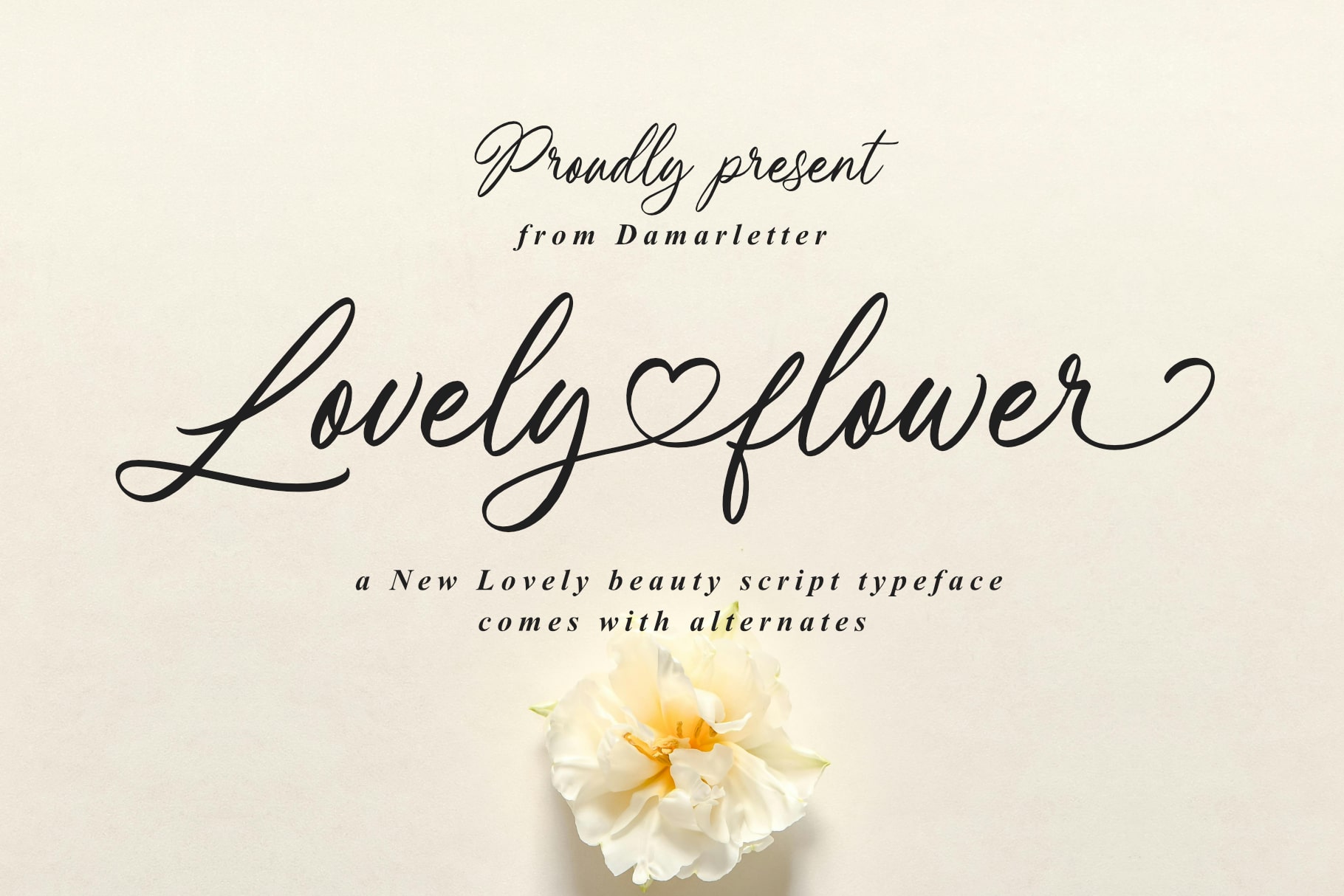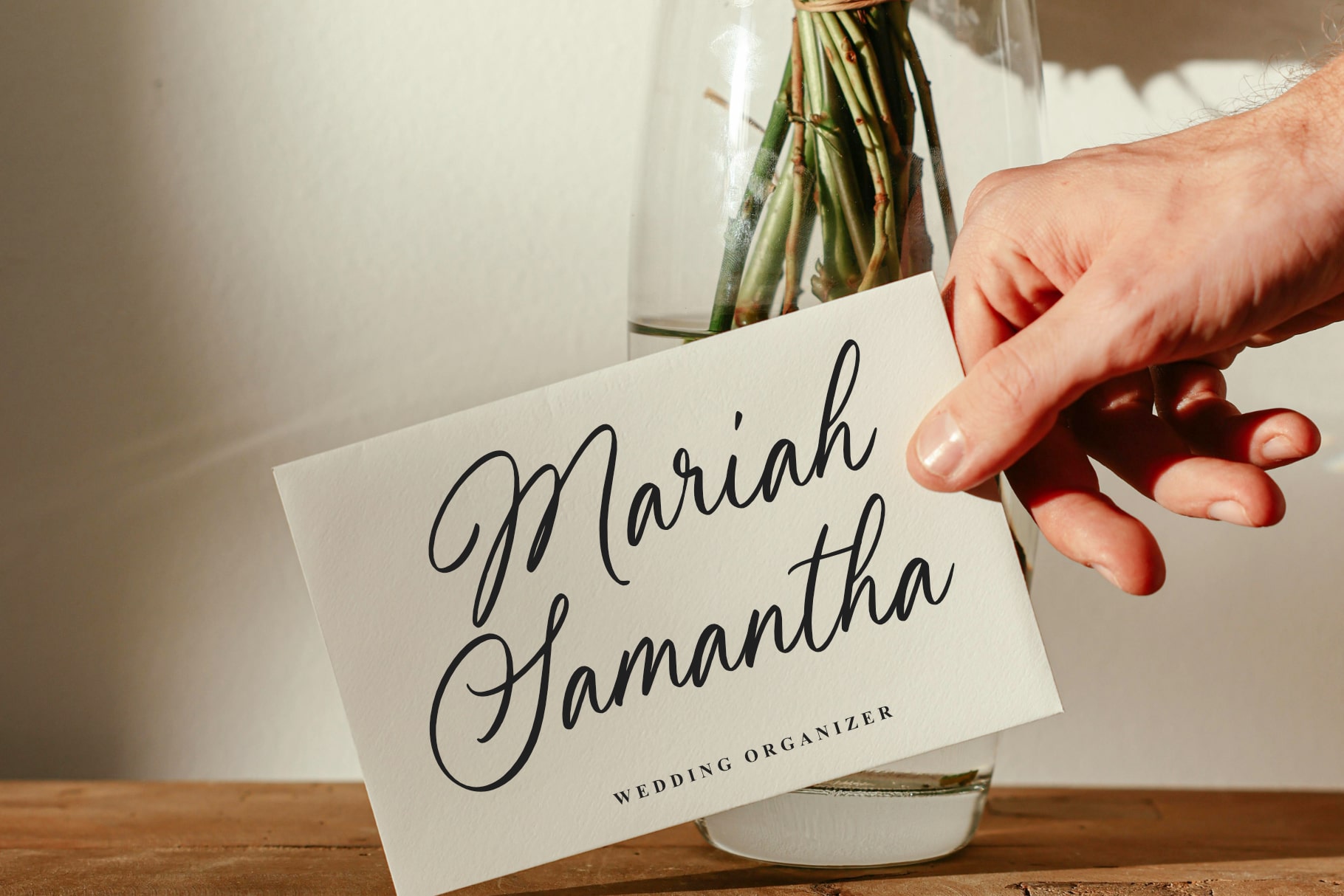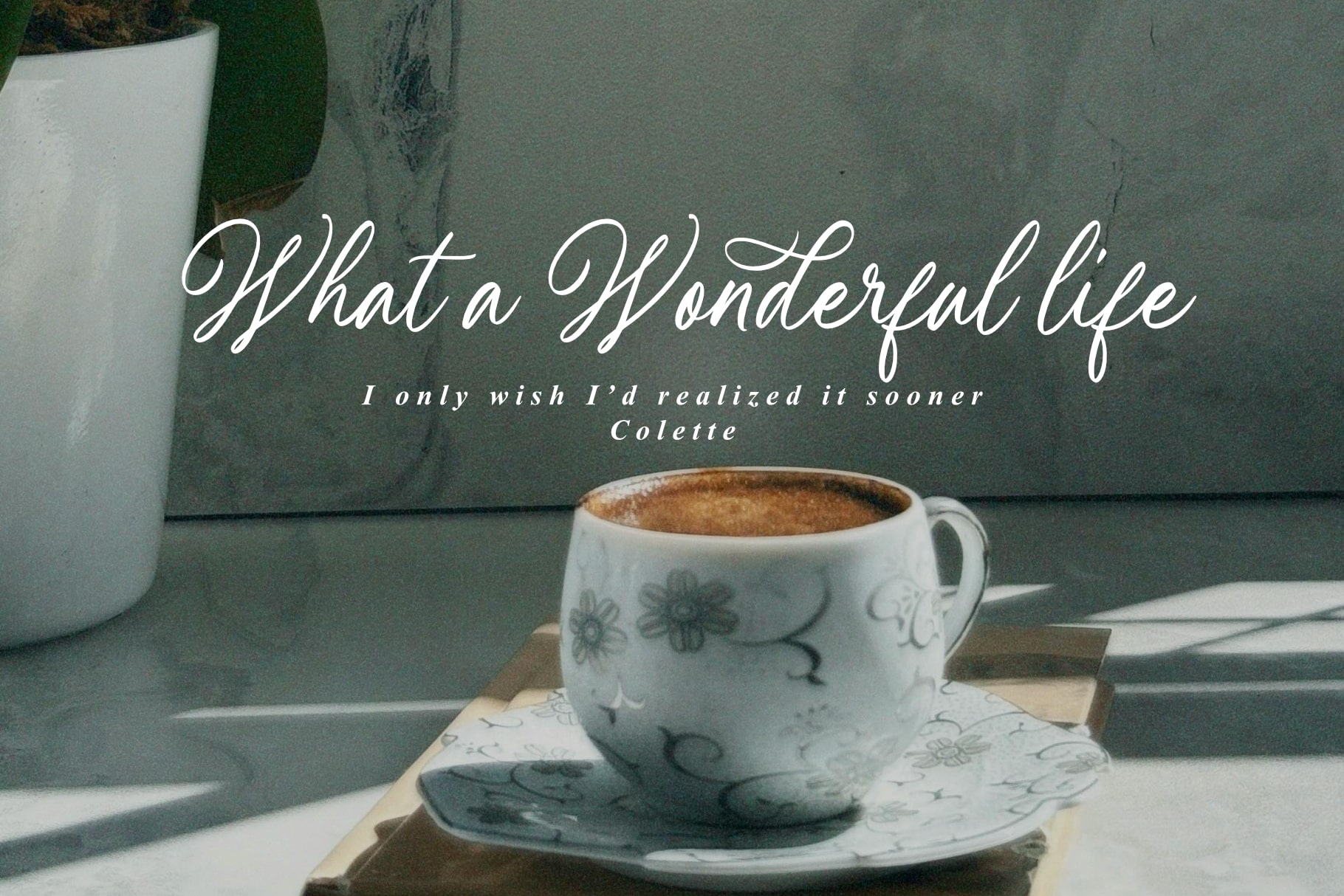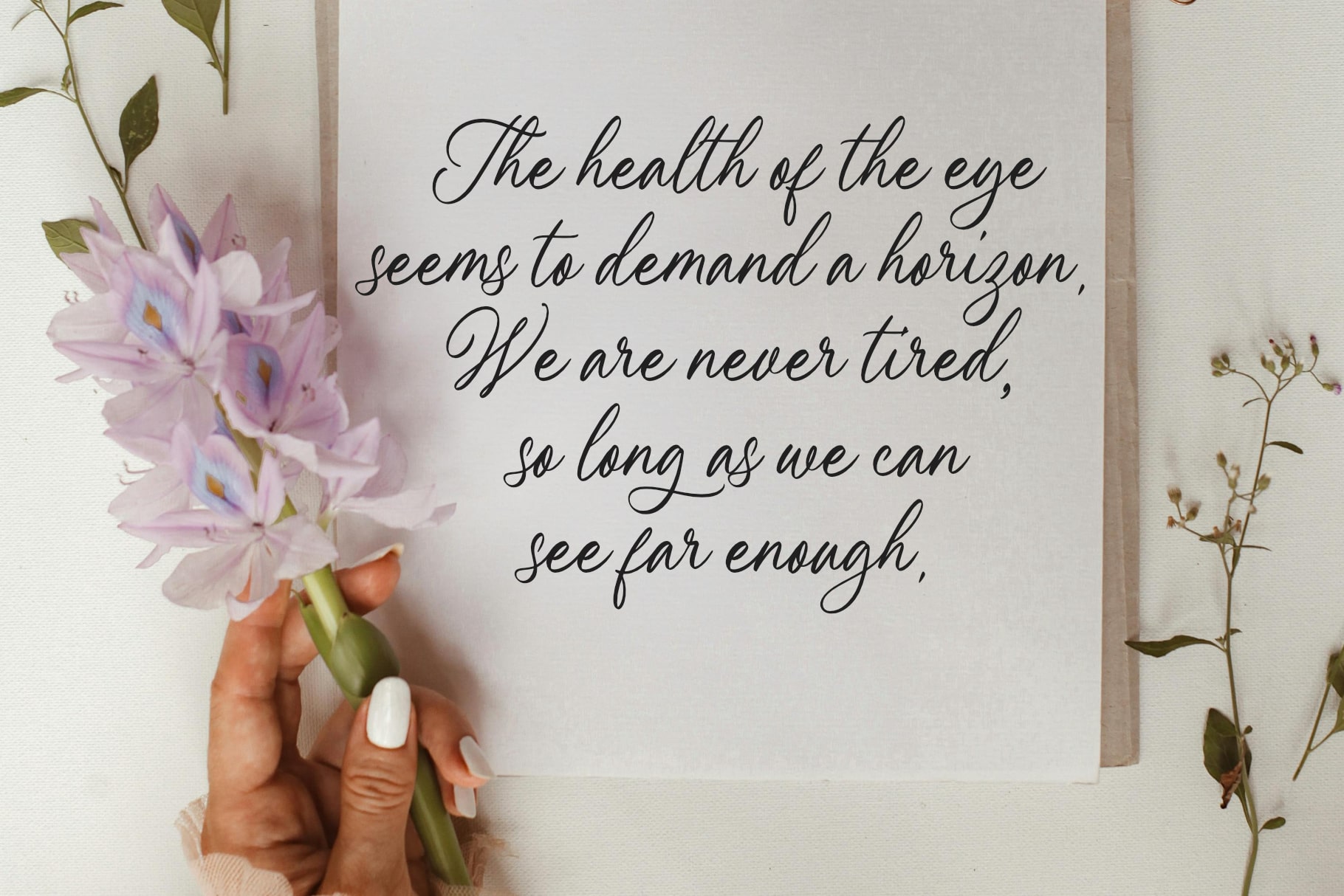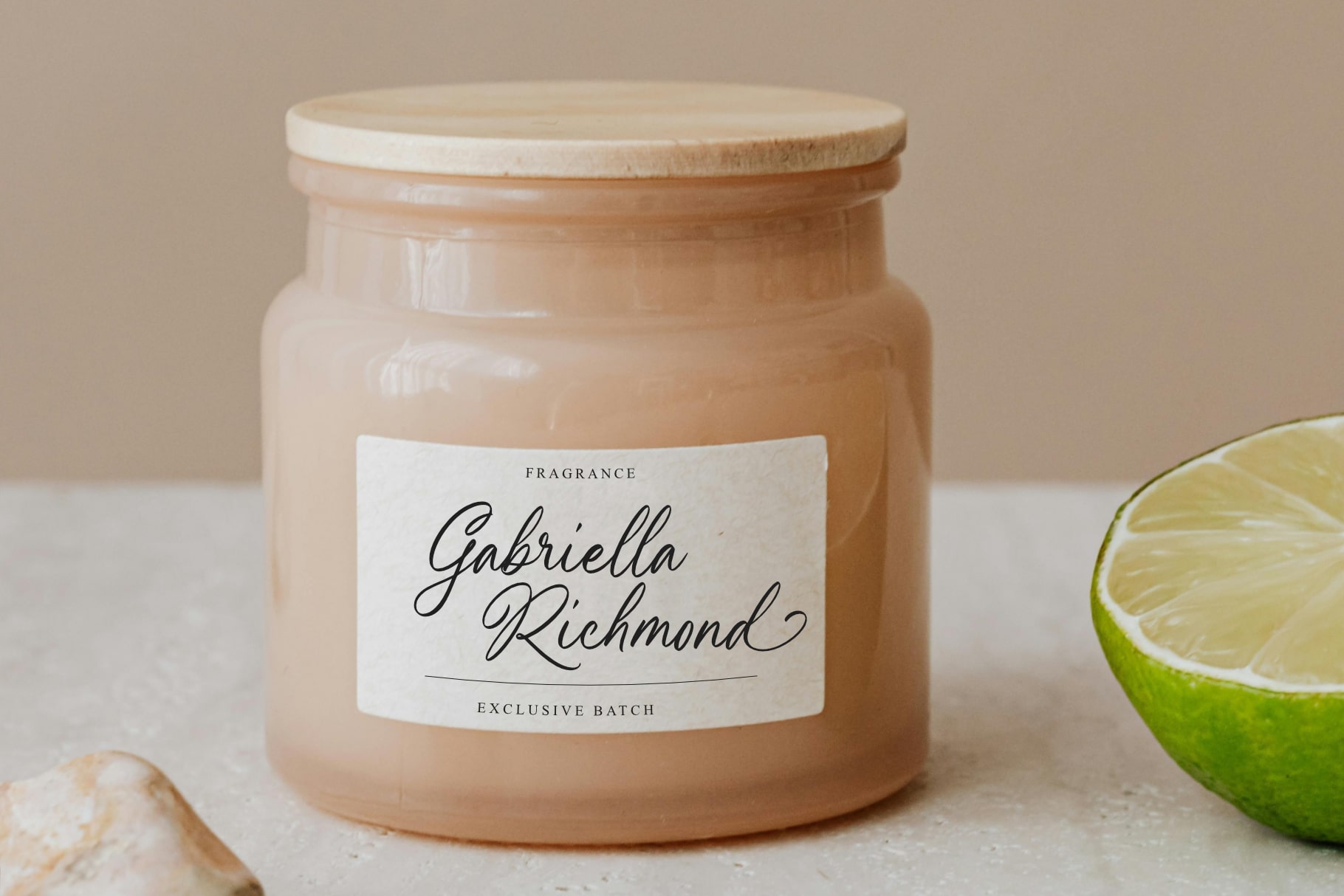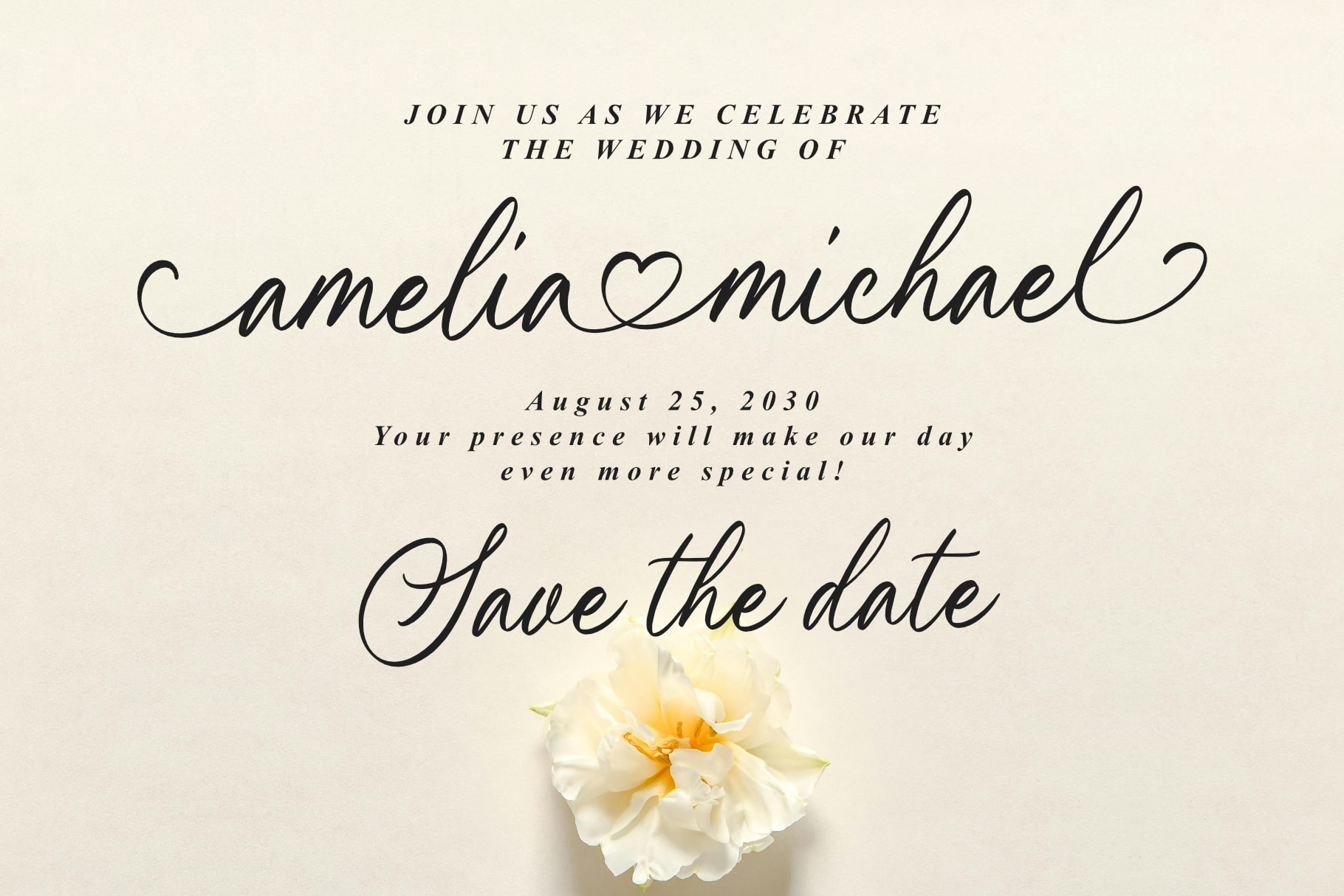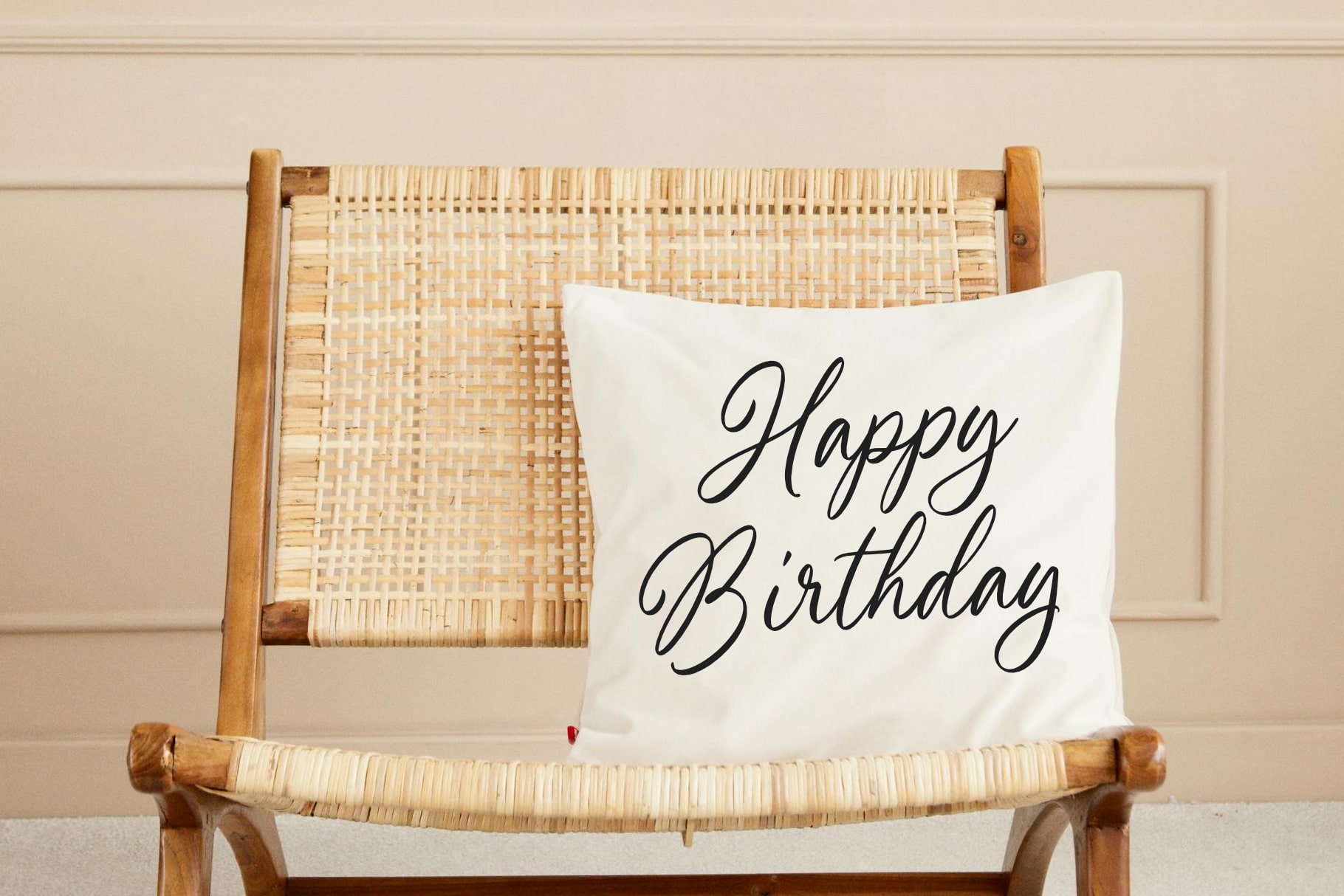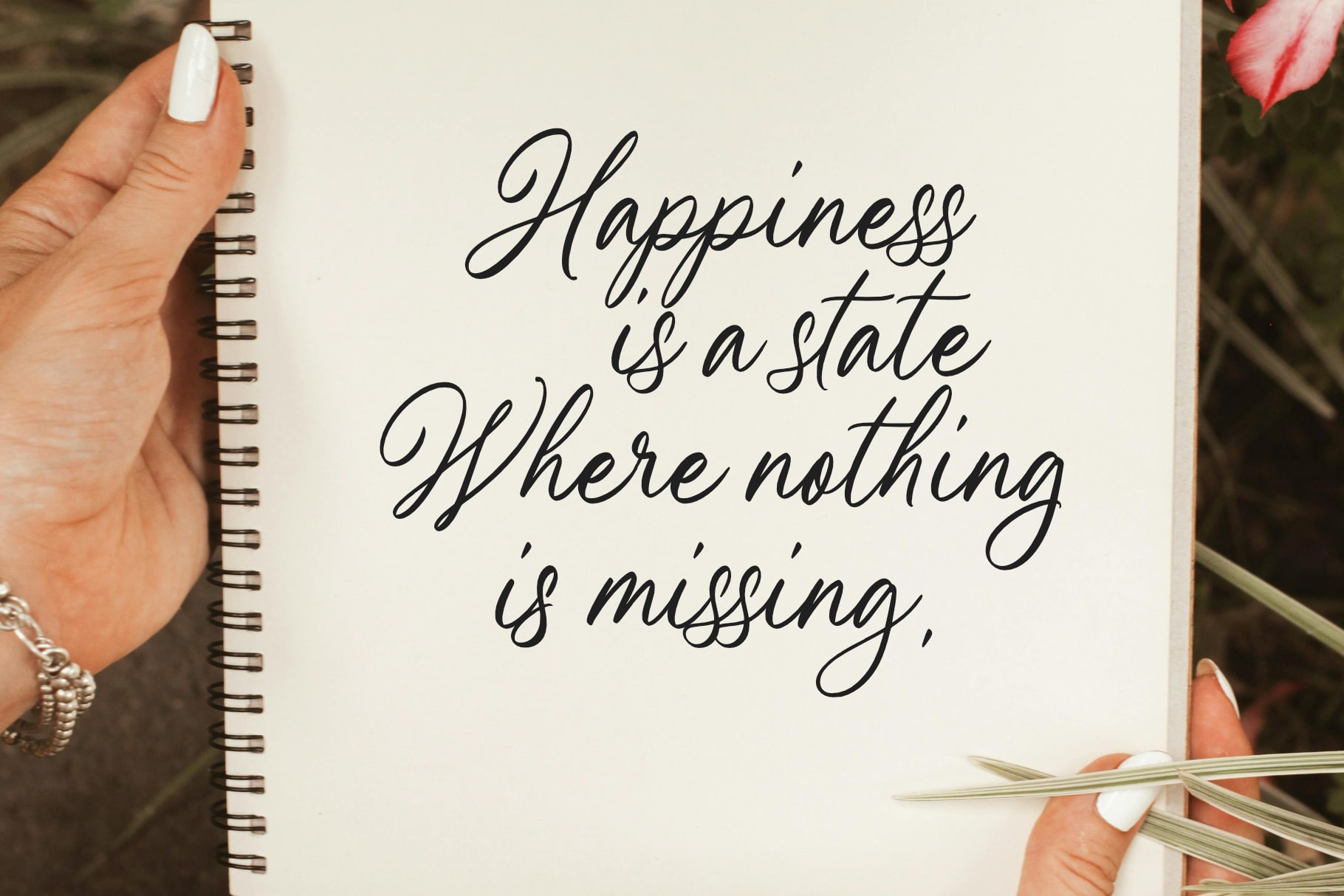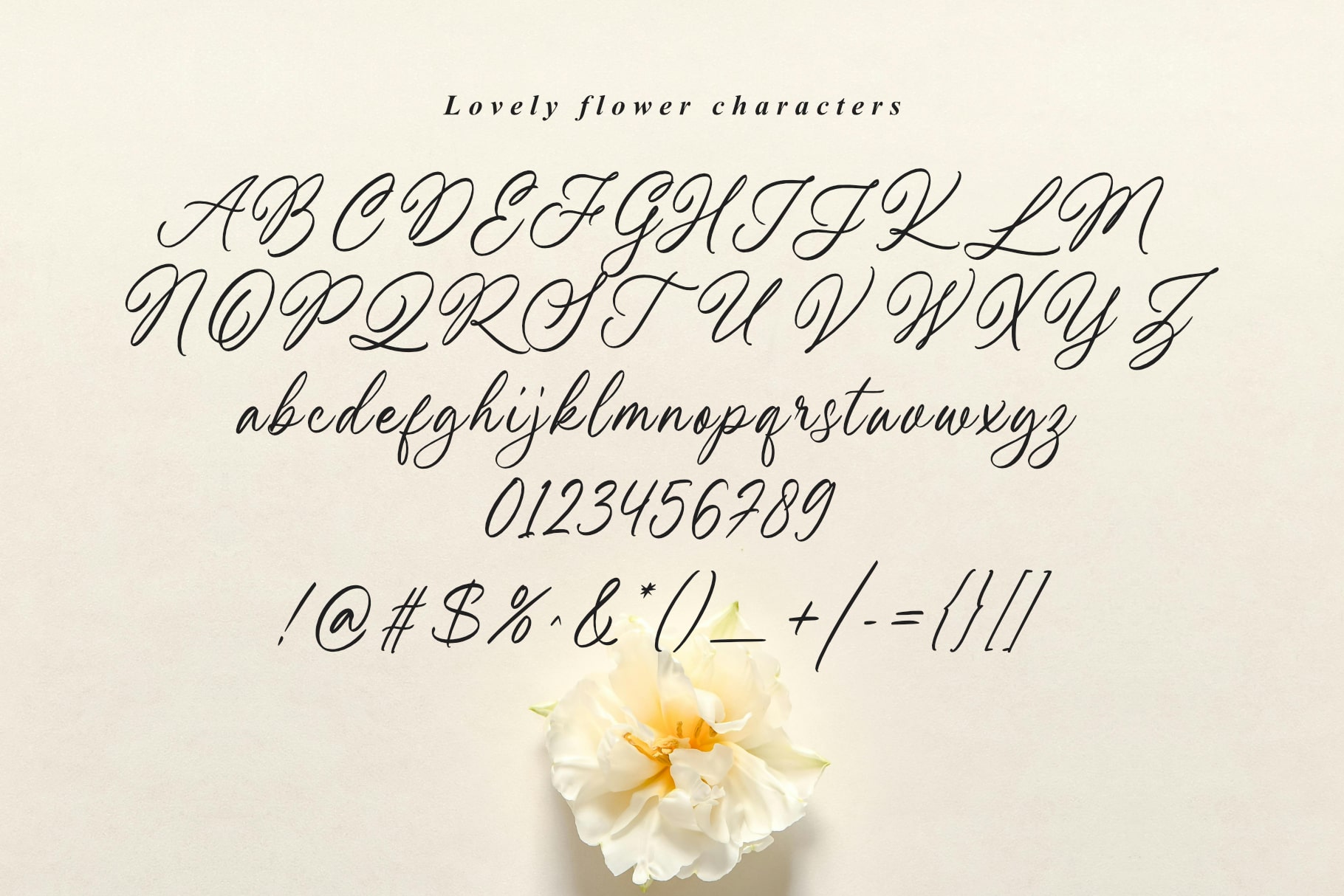
Lovely Flower
Lovely Flower is a stunning script typeface that captures the essence of lovely beauty, perfect for adding a touch of elegance and sophistication to your designs.